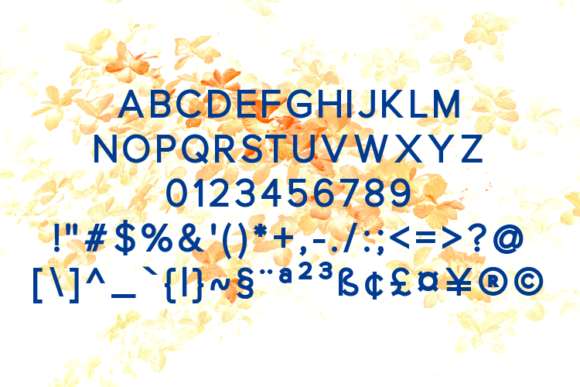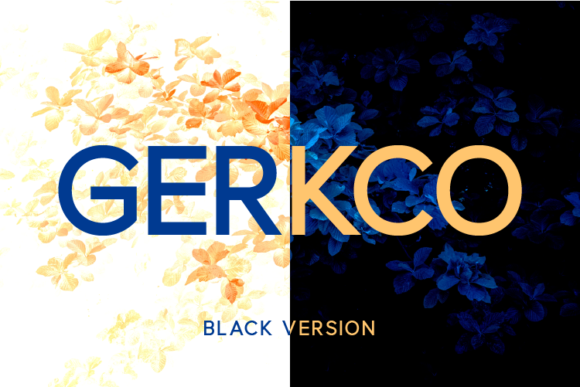
Gerkco Black Font: Elevate Your Designs with a Modern Sans Serif Style
In the world of typography, fonts play a crucial role in conveying the tone and aesthetic of a design. For designers and crafters looking to add a touch of modern elegance to their projects, Gerkco Black font is an excellent choice. This clean and elegant sans serif font is perfect for creating a wide range of designs, from logos and social media posts to book covers and more.
The Modern Feel of Gerkco Black
Gerkco Black font boasts a sleek and contemporary design that is sure to capture the attention of your audience. Its sans serif style gives it a clean and minimalist look, making it versatile enough to be used in various design contexts. The font’s modern feel is characterized by its geometric lines, balanced proportions, and high legibility, making it an ideal choice for designers seeking to create a lasting impression.
One of the standout features of Gerkco Black font is its incredible versatility. Its neutral and elegant design makes it suitable for a wide range of applications, including:
- Logos: Create professional and memorable logos that perfectly represent your brand’s identity.
- Social Media Posts: Elevate your social media presence with eye-catching posts that showcase your creativity.
- Book Covers: Design unique and captivating book covers that grab the attention of potential readers.
- Business Cards: Add a touch of sophistication to your business cards and make a lasting impression.
- Posters and Flyers: Create visually stunning posters and flyers that effectively communicate your message.
Why Choose Gerkco Black Font?
So, what sets Gerkco Black font apart from other fonts in its category? Here are just a few reasons why designers and crafters love working with this font:
- Clean and Elegant Design: Gerkco Black font features a clean and elegant design that adds a touch of sophistication to any project.
- High Legibility: The font’s clear and balanced design ensures high legibility, even at smaller font sizes.
- Modern Feel: Gerkco Black font’s modern aesthetic makes it perfect for designers looking to create contemporary and stylish designs.
- Versatility: The font’s neutral design makes it suitable for a wide range of applications and design contexts.
Tips for Using Gerkco Black Font
To get the most out of Gerkco Black font, here are a few tips to keep in mind:
- Pair it with Other Fonts: Experiment with pairing Gerkco Black font with other fonts to create visually interesting and dynamic designs.
- Use it for Headings: Gerkco Black font is perfect for headings and titles, where its bold and elegant design can make a lasting impression.
In conclusion, Gerkco Black font is an excellent choice for designers and crafters looking to add a touch of modern elegance to their projects. Its clean and elegant sans serif design, high legibility, and versatility make it perfect for a wide range of applications. Whether you’re creating logos, social media posts, book covers, or more, Gerkco Black font is sure to elevate your designs and leave a lasting impression.